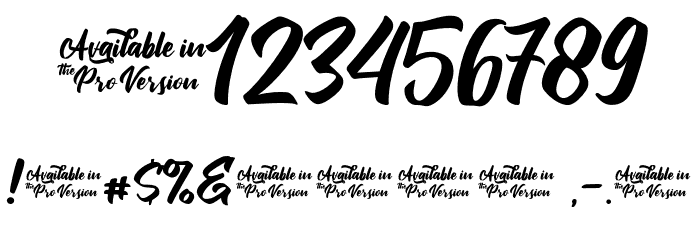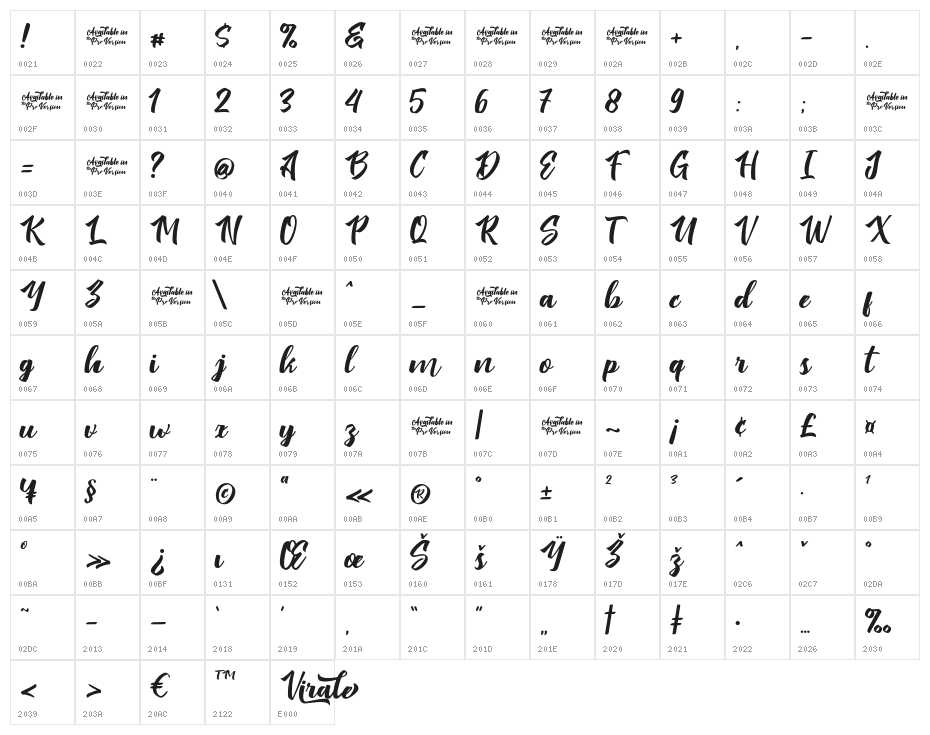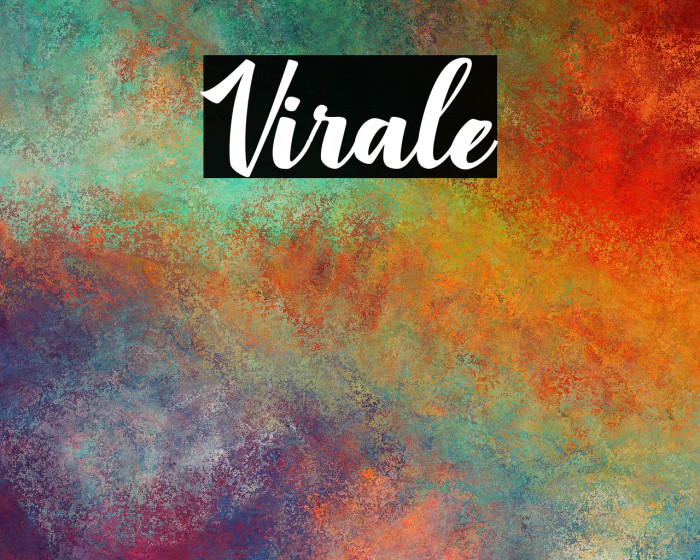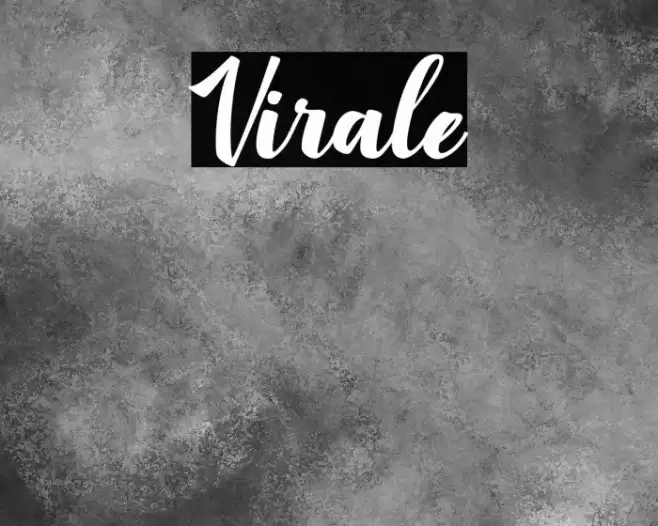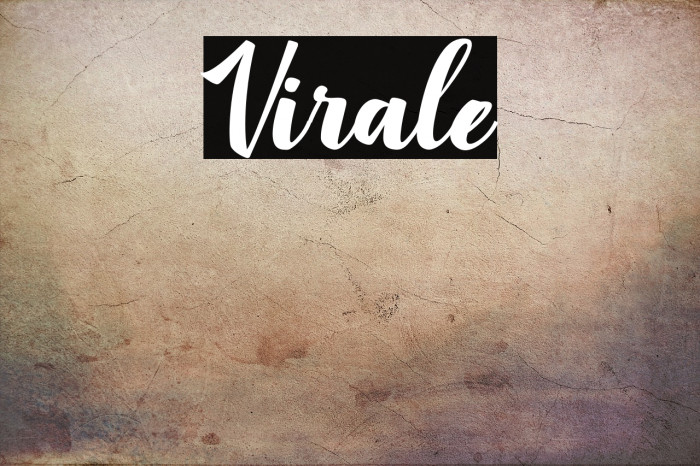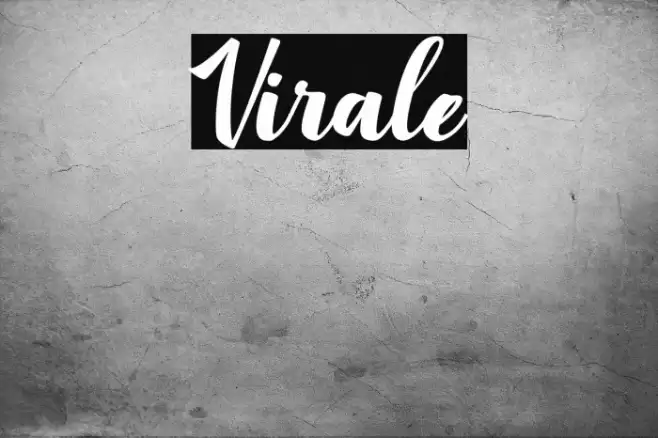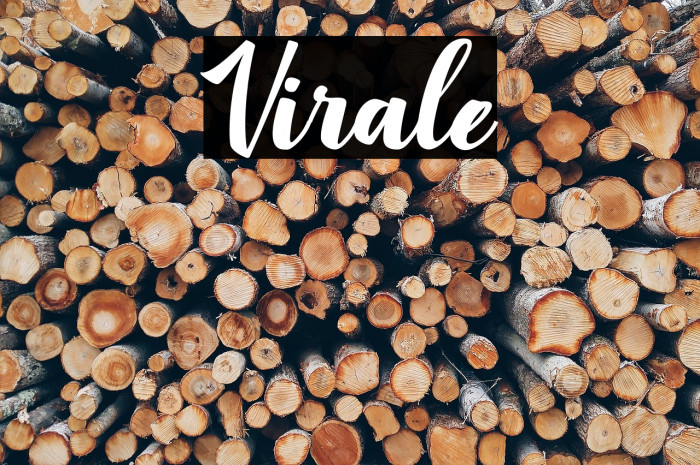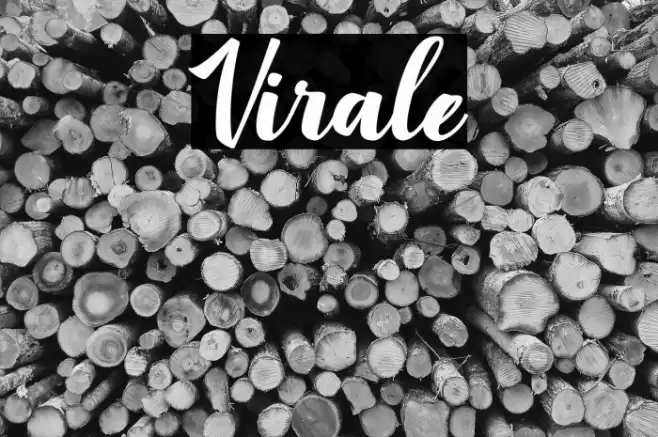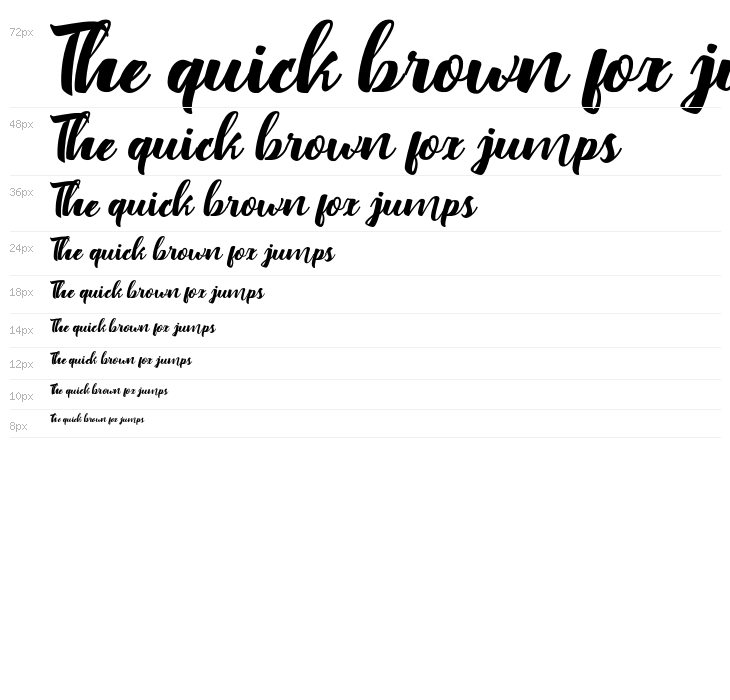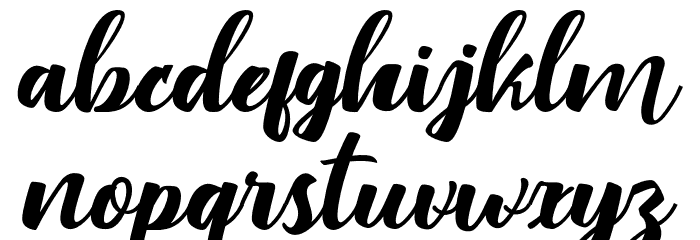
Virale Font
Virale Description
This font exhibits a bold and expressive script style, characterized by its fluid and dynamic strokes. The uppercase letters are particularly striking, with a sense of movement and flair that suggests a handwritten quality. The lowercase letters maintain this fluidity, offering a harmonious balance between elegance and readability. The numerals are consistent with the overall style, providing a cohesive look across all characters. This font's boldness is complemented by its medium contrast, where the thick and thin strokes are distinct yet not overly exaggerated. The character spacing is normal, allowing for clear legibility while maintaining the decorative appeal.
| Proposed Projects | Ideal for branding projects, wedding invitations, greeting cards, and any design that requires a personal, elegant touch. |